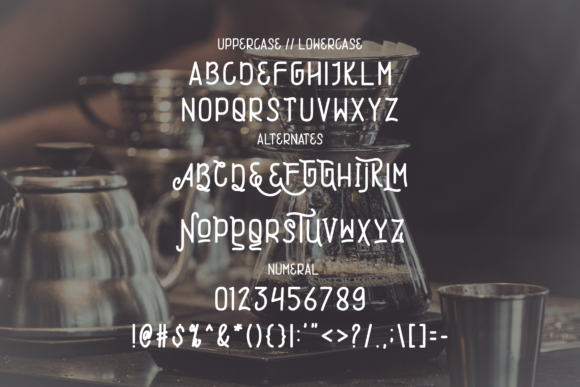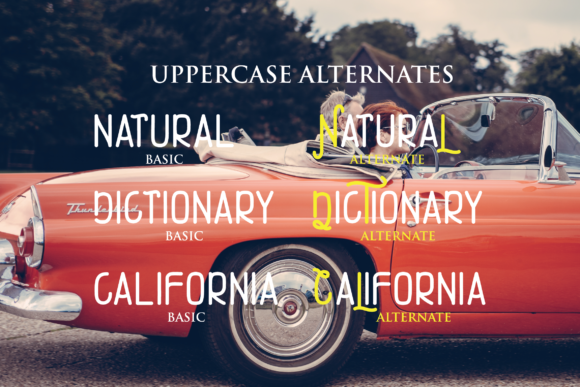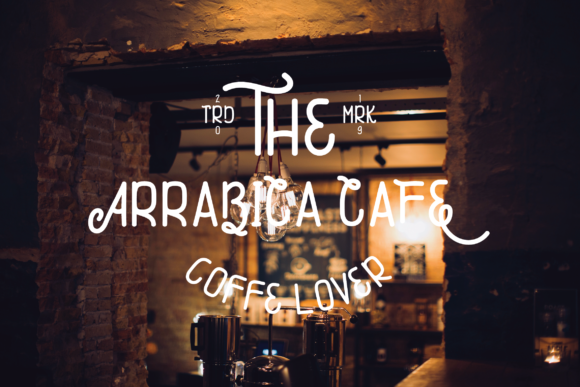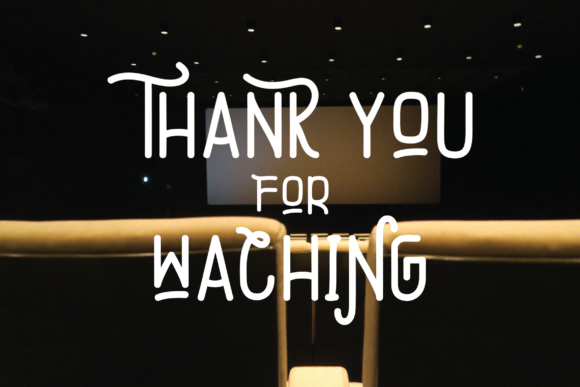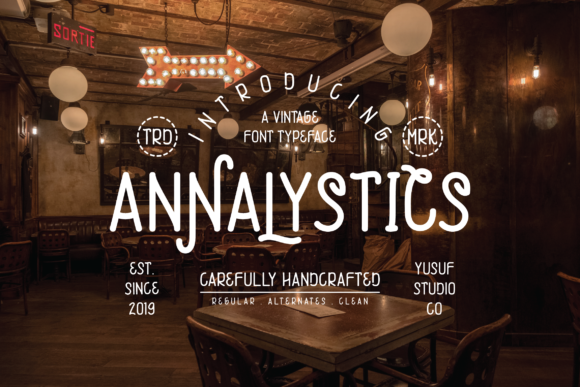
Introducing Annalystics Font: Elevate Your Designs with Vintage Elegance
In the world of typography, fonts play a crucial role in conveying the tone and aesthetic of a brand or design. For those seeking a unique and vintage touch, the Annalystics Font is an excellent choice. This beautiful monoline script boasts a series of distinctive, vintage-style characters that are sure to elevate your designs.
What is Annalystics Font?
The Annalystics Font is a meticulously crafted monoline script that exudes a sense of nostalgia and sophistication. Its elegant, flowing lines and unique character set make it an ideal choice for designers and crafters looking to add a touch of vintage charm to their work.
Key Features of Annalystics Font
- Monoline Script: The Annalystics Font features a beautiful monoline script with flowing lines and elegant curves.
- Vintage-Style Characters: The font includes a series of unique, vintage-style characters that add a touch of nostalgia to your designs.
- High Versatility: The Annalystics Font is perfect for a wide range of design applications, including vintage branding, logo and label designs, clothing, and more.
Use Cases for Annalystics Font
The Annalystics Font is an incredibly versatile typeface that can be used in various design projects. Here are some use cases to get you started:
- Vintage Branding: Add a touch of nostalgia to your brand identity with the Annalystics Font. Its unique character set and elegant lines make it perfect for creating vintage-inspired logos and typography.
- Logo and Label Designs: The Annalystics Font is ideal for creating custom logos and labels with a vintage flair. Its monoline script and distinctive characters make it stand out from the crowd.
- Clothing and Apparel: Add a touch of elegance to your clothing and apparel designs with the Annalystics Font. Its beautiful lines and vintage-style characters make it perfect for creating unique and eye-catching designs.
- Stationery and Packaging: The Annalystics Font is also suitable for creating custom stationery and packaging designs. Its elegant lines and nostalgic feel make it perfect for adding a touch of sophistication to your designs.
Why Choose Annalystics Font?
With so many fonts available, why choose the Annalystics Font? Here are a few reasons why this typeface stands out:
- Unique Character Set: The Annalystics Font features a unique character set that is sure to make your designs stand out from the crowd.
- Elegant Lines: The font’s elegant lines and monoline script make it perfect for creating sophisticated and elegant designs.
- High Versatility: The Annalystics Font is incredibly versatile and can be used in a wide range of design applications.
Tips for Using Annalystics Font
To get the most out of the Annalystics Font, here are a few tips to keep in mind:
- Experiment with Sizes: The Annalystics Font looks great in various sizes, from small and delicate to large and bold. Experiment with different sizes to find the perfect fit for your design.
- Pair with Other Fonts: The Annalystics Font pairs well with other fonts, especially serif and sans-serif fonts. Experiment with different font combinations to create a unique and eye-catching design.
- Use in Combination with Images: The Annalystics Font looks great in combination with images, especially vintage-style illustrations and photographs. Use the font to add a touch of elegance and sophistication to your designs.
In conclusion, the Annalystics Font is a beautiful monoline script that is perfect for designers and crafters looking to add a touch of vintage elegance to their work. Its unique character set, elegant lines, and high versatility make it an excellent choice for a wide range of design applications. Whether you’re creating vintage branding, logo and label designs, clothing, or stationery, the Annalystics Font is sure to elevate your designs to the next level.